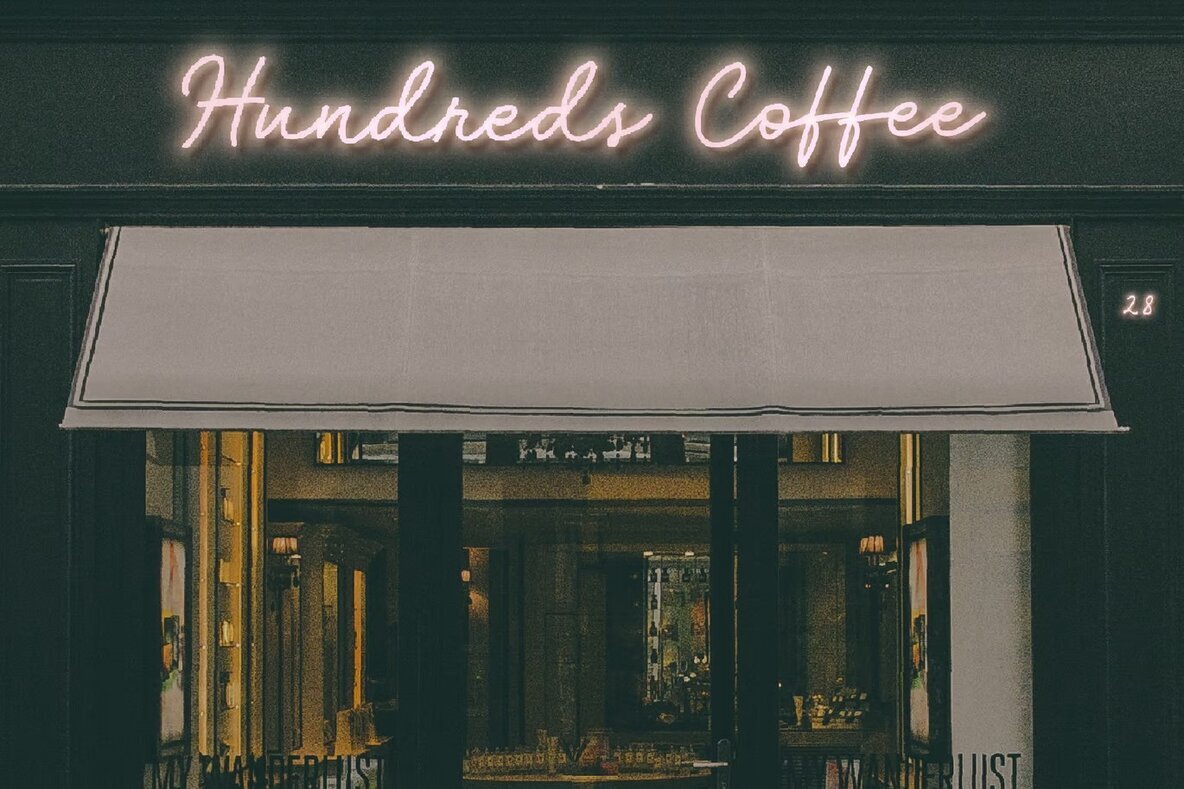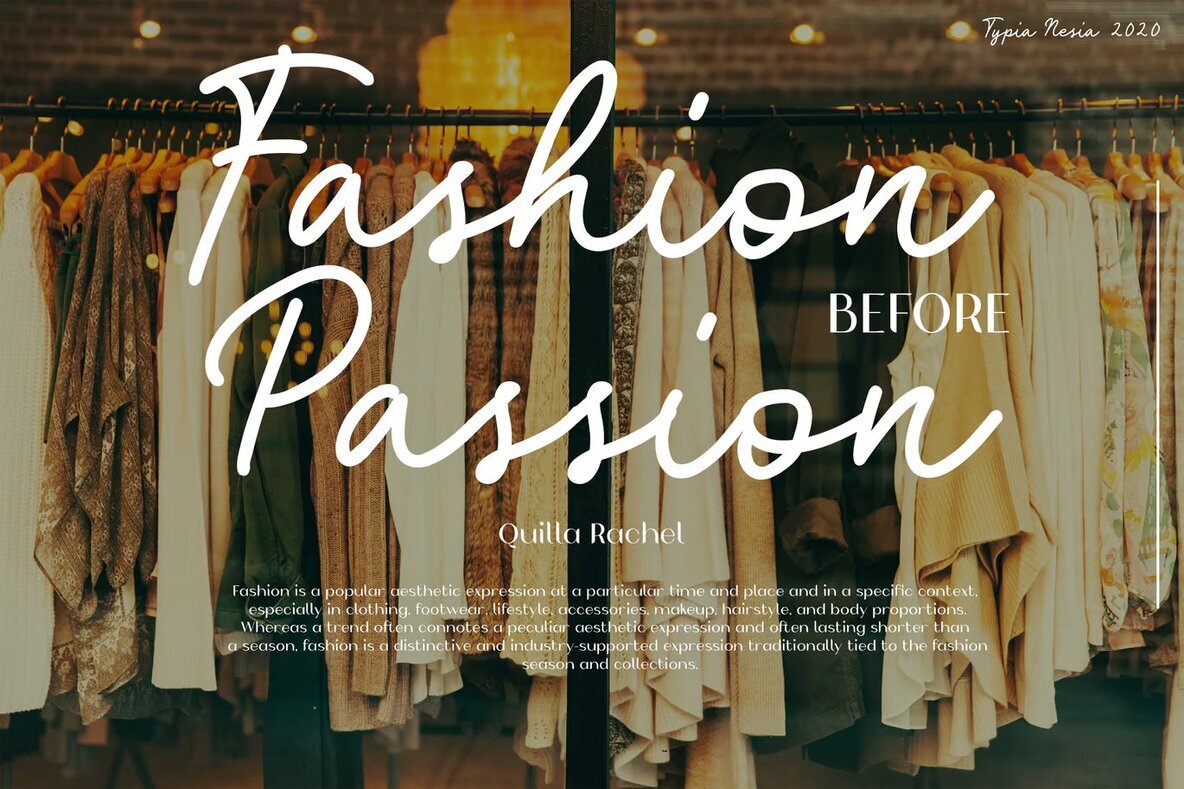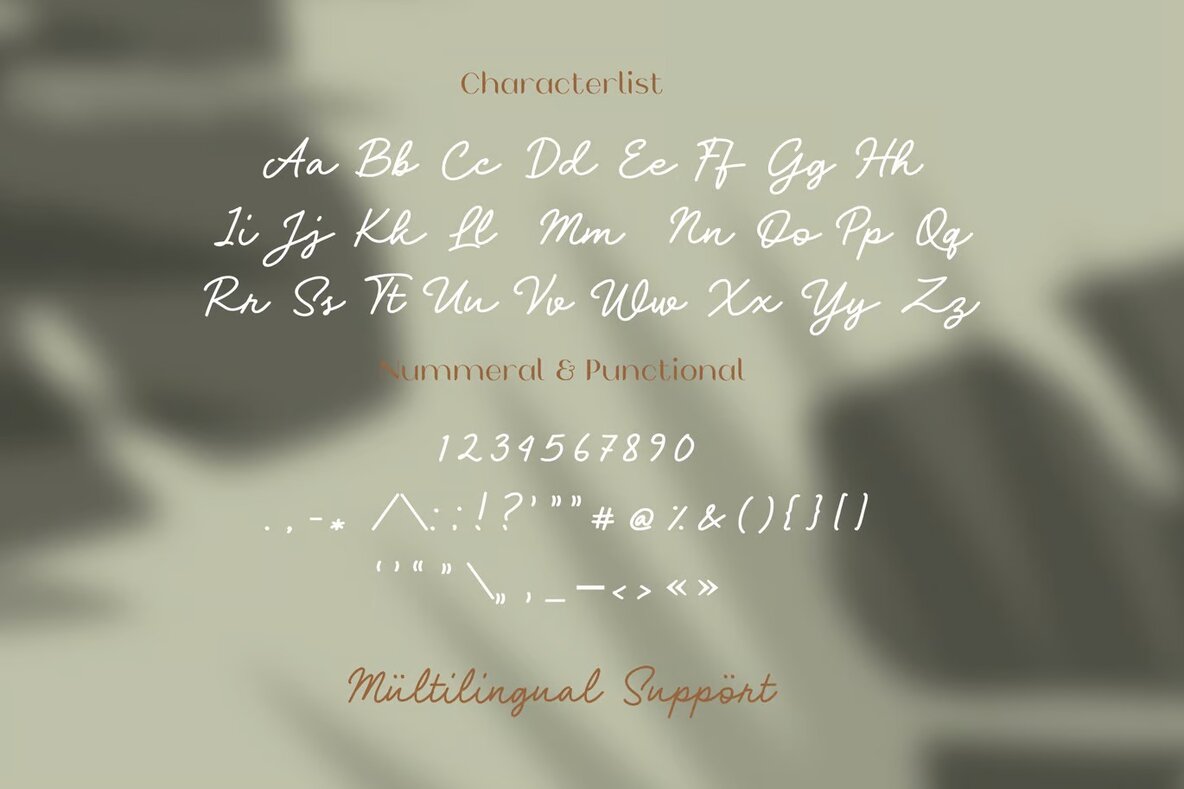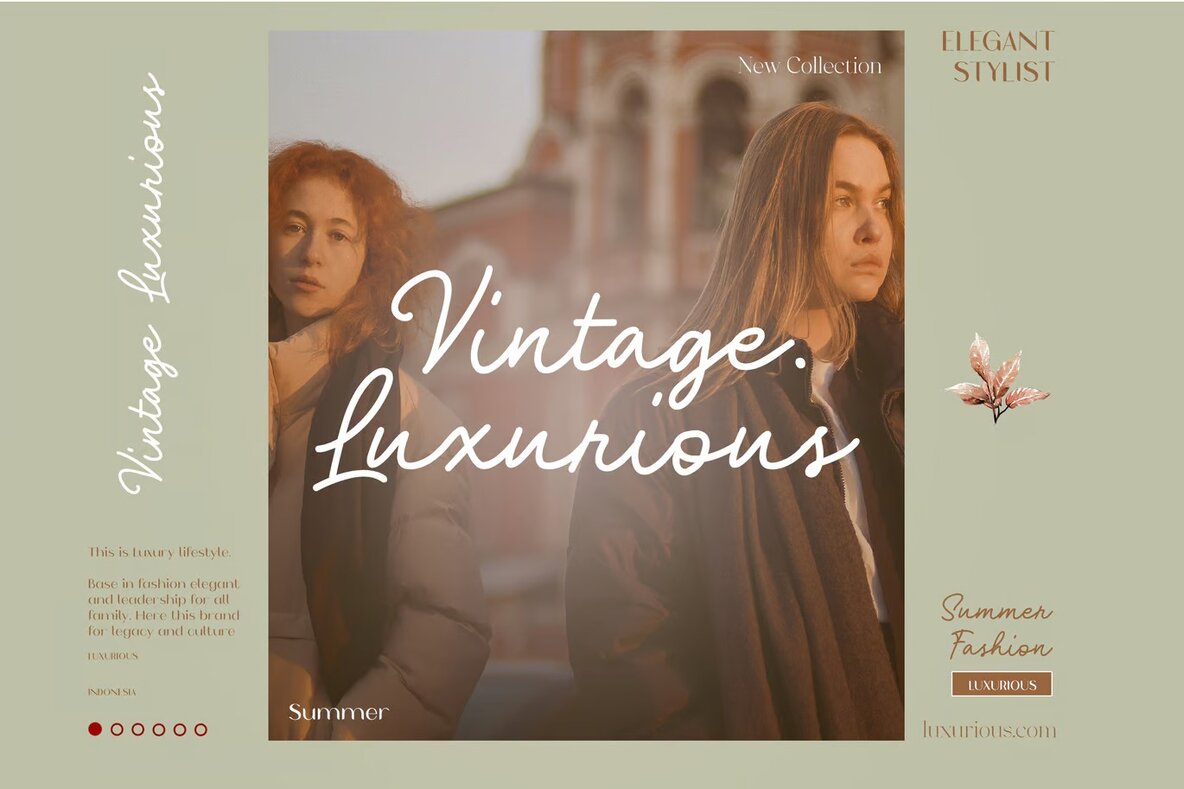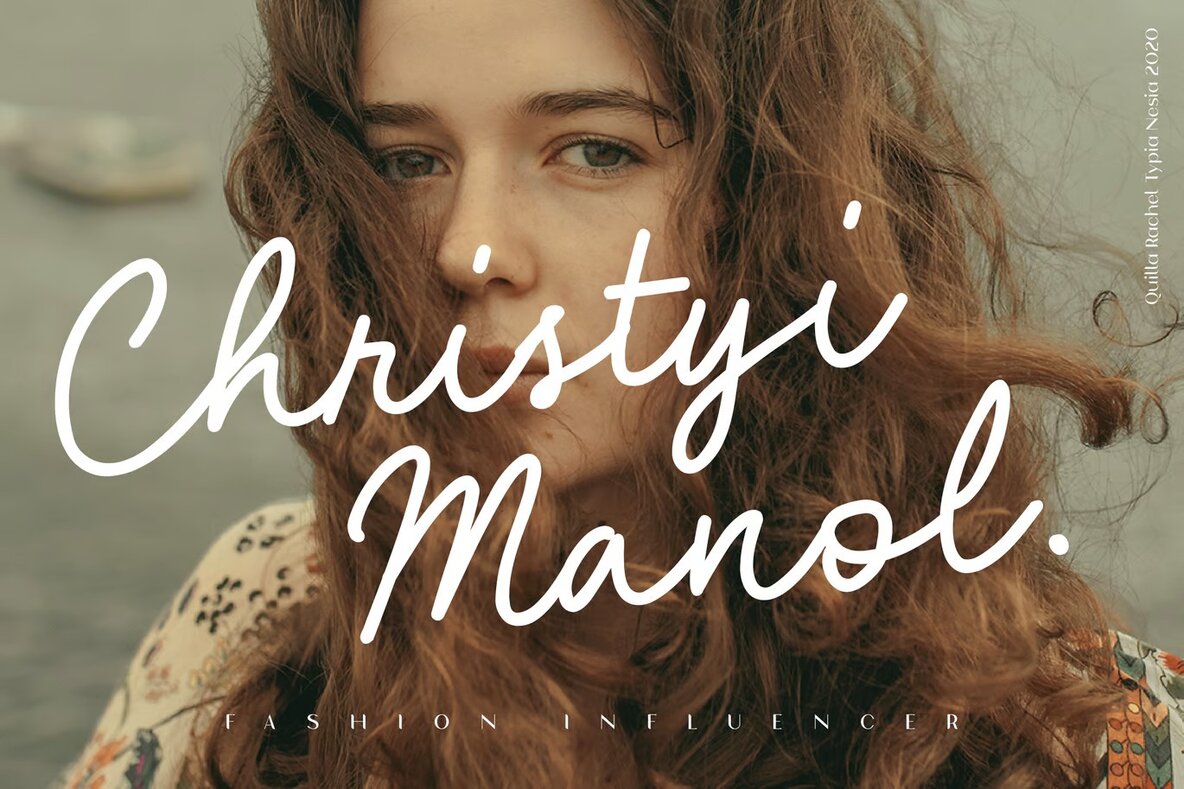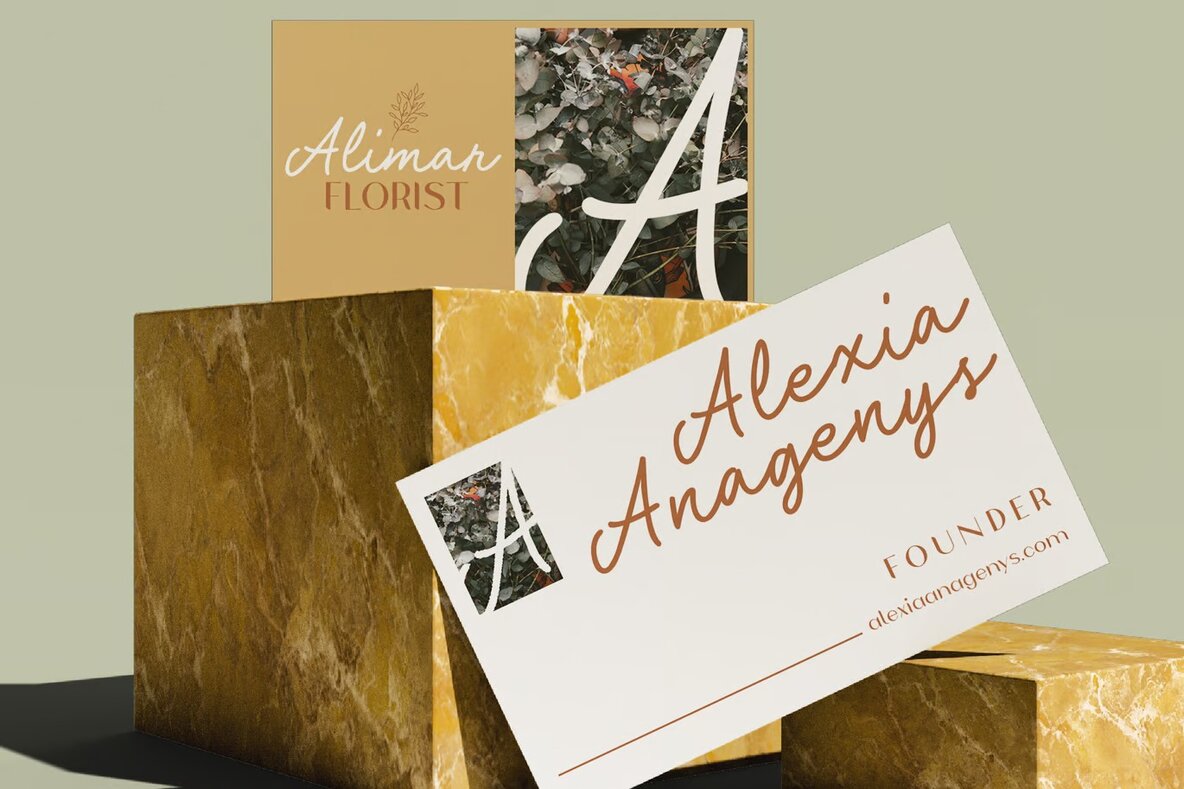
Quilla Rachel Font
Quilla Rachel
Quilla Rachel embodies a monoline neon retro script style, perfect for adding a unique touch to your design projects. This handwritten signature font effortlessly fits modern invitation designs, branding, and stationery. It's an ideal choice for blog layouts, advertising campaigns, and wedding invitations. Whether you're working on art quotes, home décor, or book covers, Quilla Rachel brings a distinctive flair to any creative endeavor.
Beyond typical design uses, this versatile font can enhance special events, birthdays, and personalized gifts like custom mugs, pillows, and T-shirts. Its adaptability makes it a great addition to any designer’s toolkit when striving for that elegant signature look.